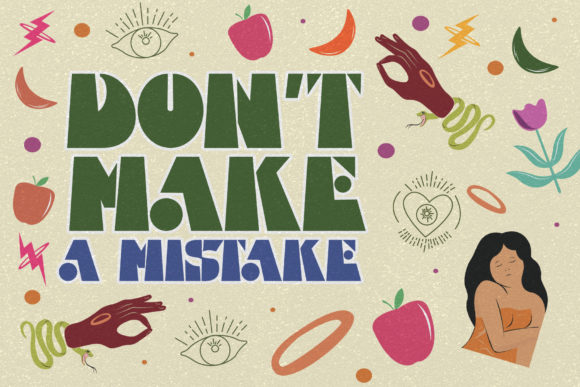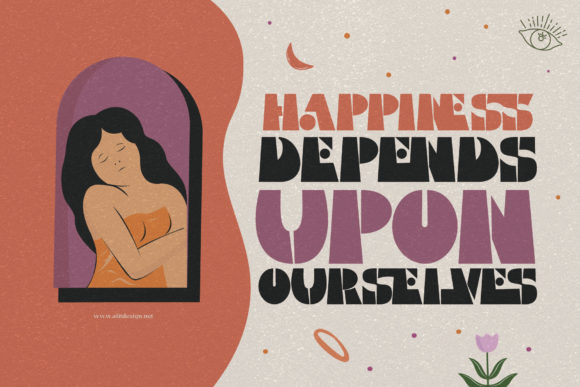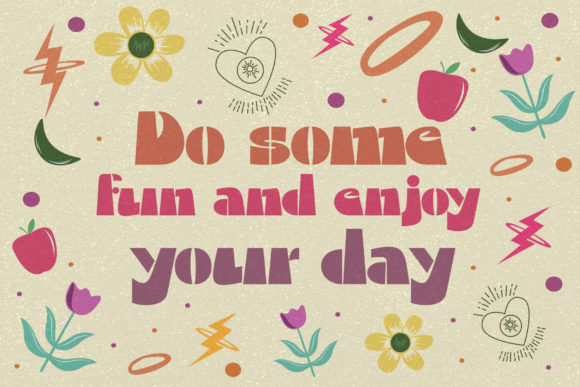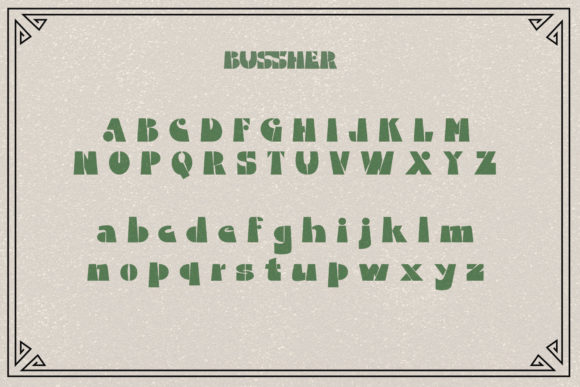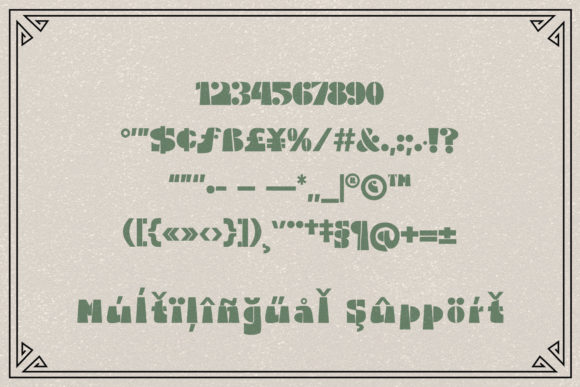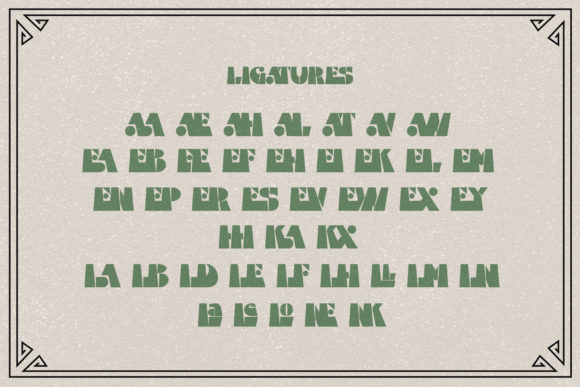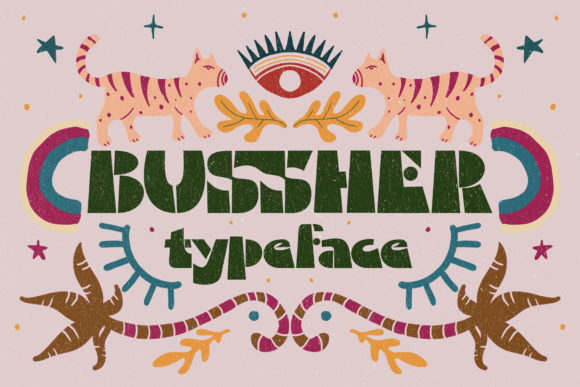
The Ultimate Display Font: Bussher – Elevate Your Designs with Confidence
I’ll never forget the moment I stumbled upon the Bussher font. I was working on a project for a client who needed a bold, eye-catching title for their branding campaign. I had spent hours scouring through font libraries, but nothing seemed quite right. That was until I saw Bussher – a thick lettered, retro-styled font that instantly caught my attention. I knew right then and there that it was the perfect fit.
So, what makes Bussher so special? Here are a few things that I absolutely love:
- ✨ Bold and attention-grabbing: Bussher is the perfect font for making a statement. Its thick letters and retro vibe are sure to turn heads.
- ✅ PUA encoded for easy access: With Bussher, you can easily access all of the glyphs and swashes, making it a breeze to customize your designs.
- 🎉 Retro charm: Bussher has a unique, nostalgic feel that’s perfect for designs that need a bit of personality.
Of course, no font is perfect, and Bussher does have a few quirks:
- 🤔 Limited use cases: While Bussher is amazing for display text, it may not be the best choice for body text or smaller font sizes.
- ⚠️ Some users may find it too bold: If you’re looking for a more subtle font, Bussher might not be the best fit.
While the true origins of Bussher are shrouded in mystery, it’s easy to imagine that it was inspired by the classic signage of the 1950s and 60s. Perhaps the designer was flipping through vintage advertising materials, looking for inspiration for a bold, eye-catching font. Whatever the inspiration, Bussher is a true original – a font that’s sure to make your designs stand out.
| What is PUA encoding? | PUA (Private Use Area) encoding allows designers to access a font’s full range of glyphs and swashes, making it easier to customize their designs. |
| Is Bussher suitable for body text? | While Bussher is amazing for display text, it may not be the best choice for body text or smaller font sizes. |